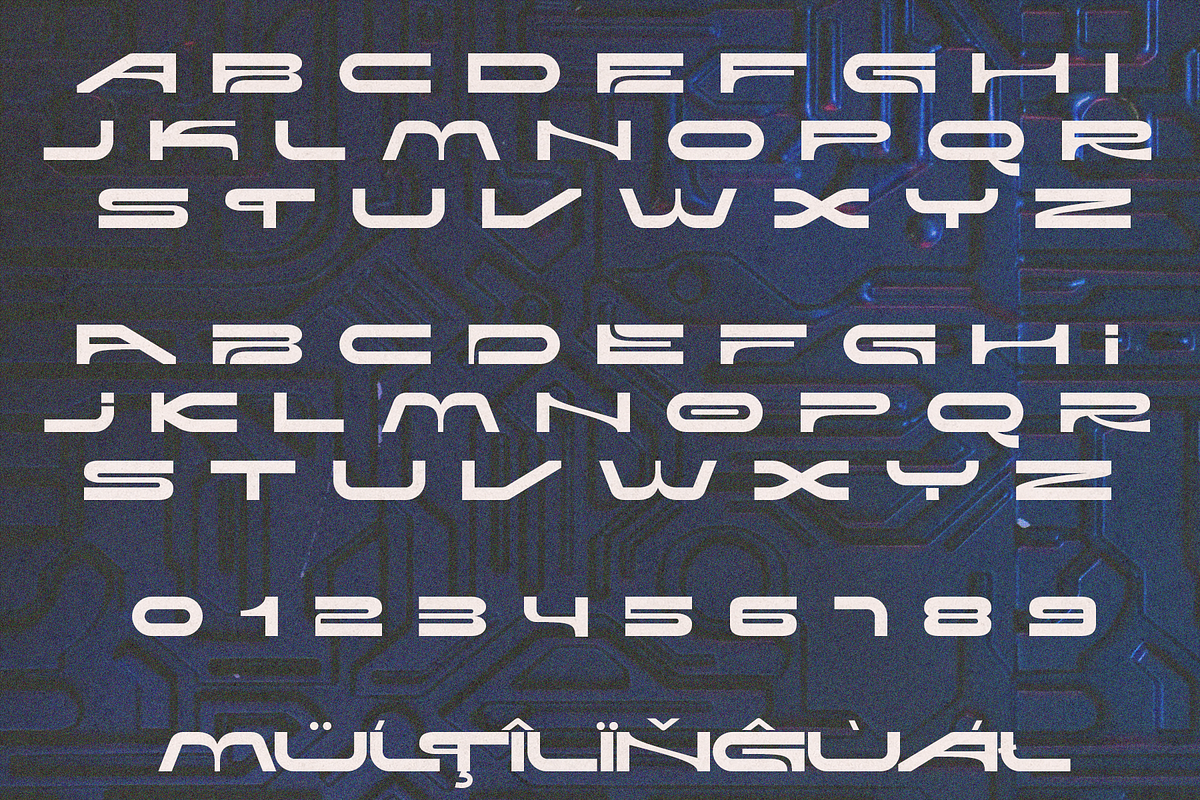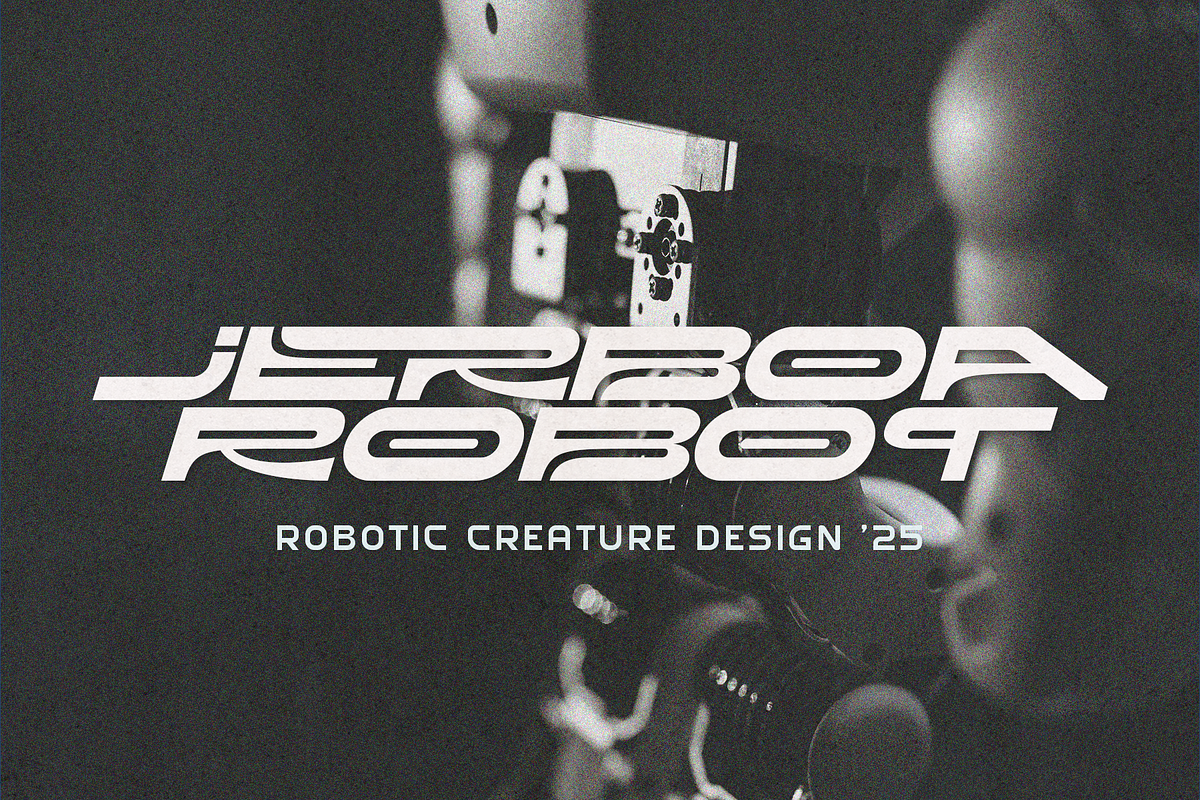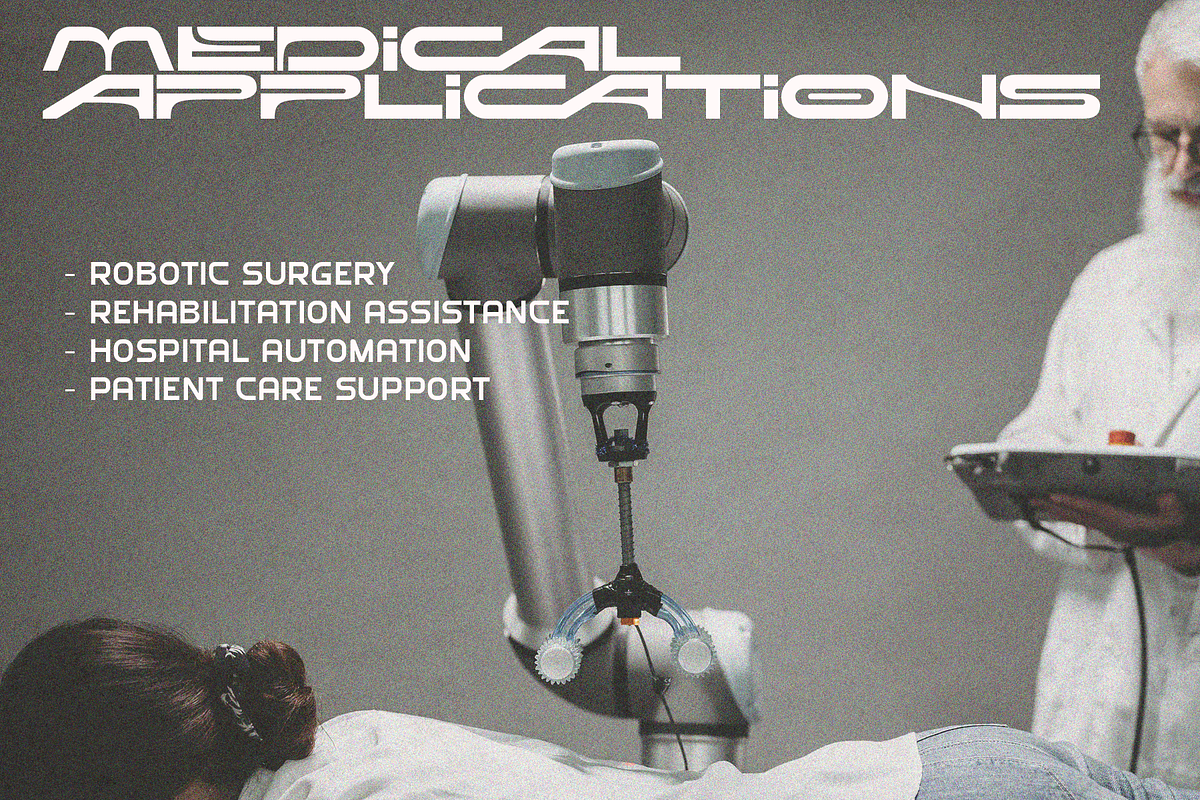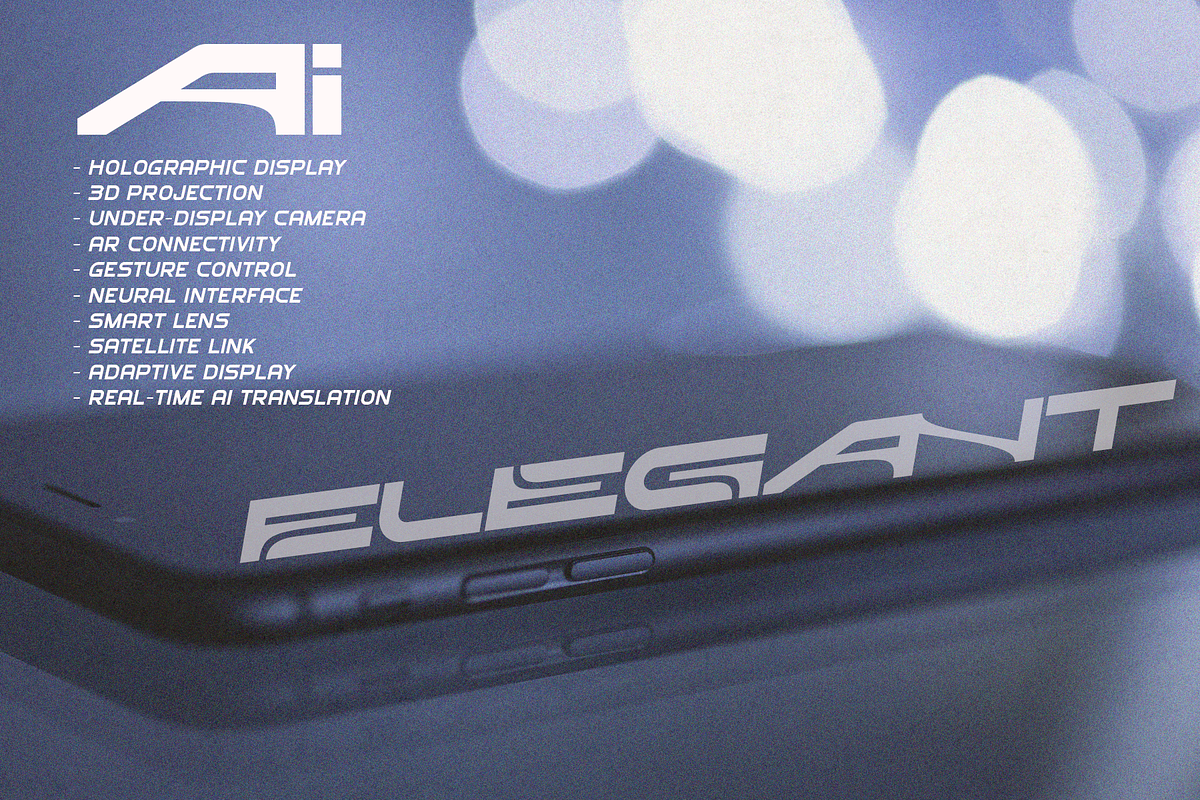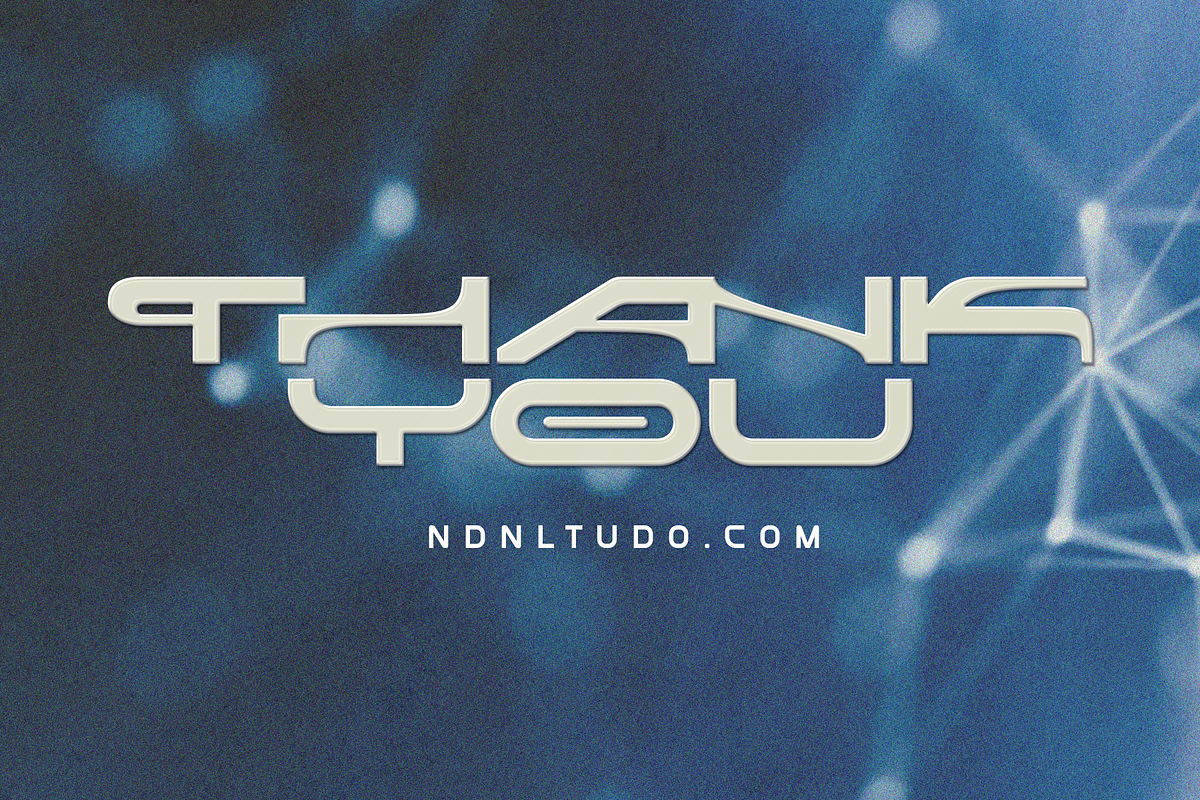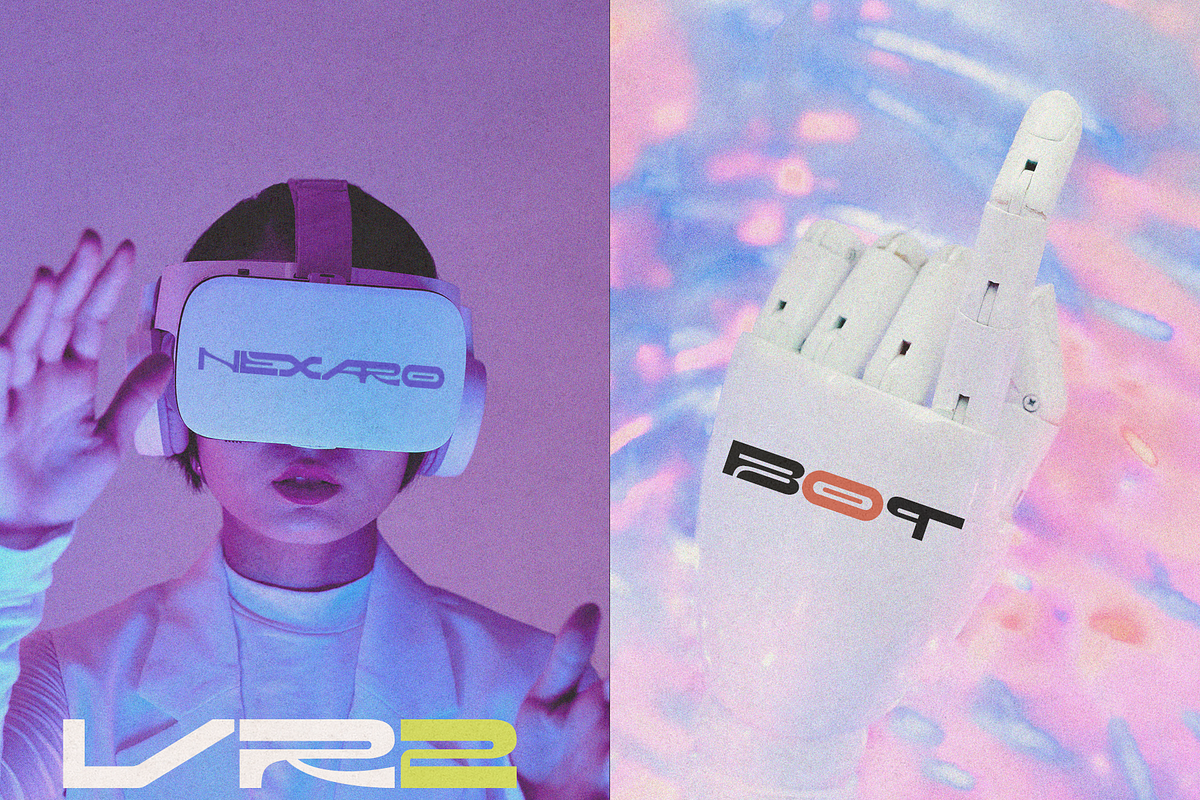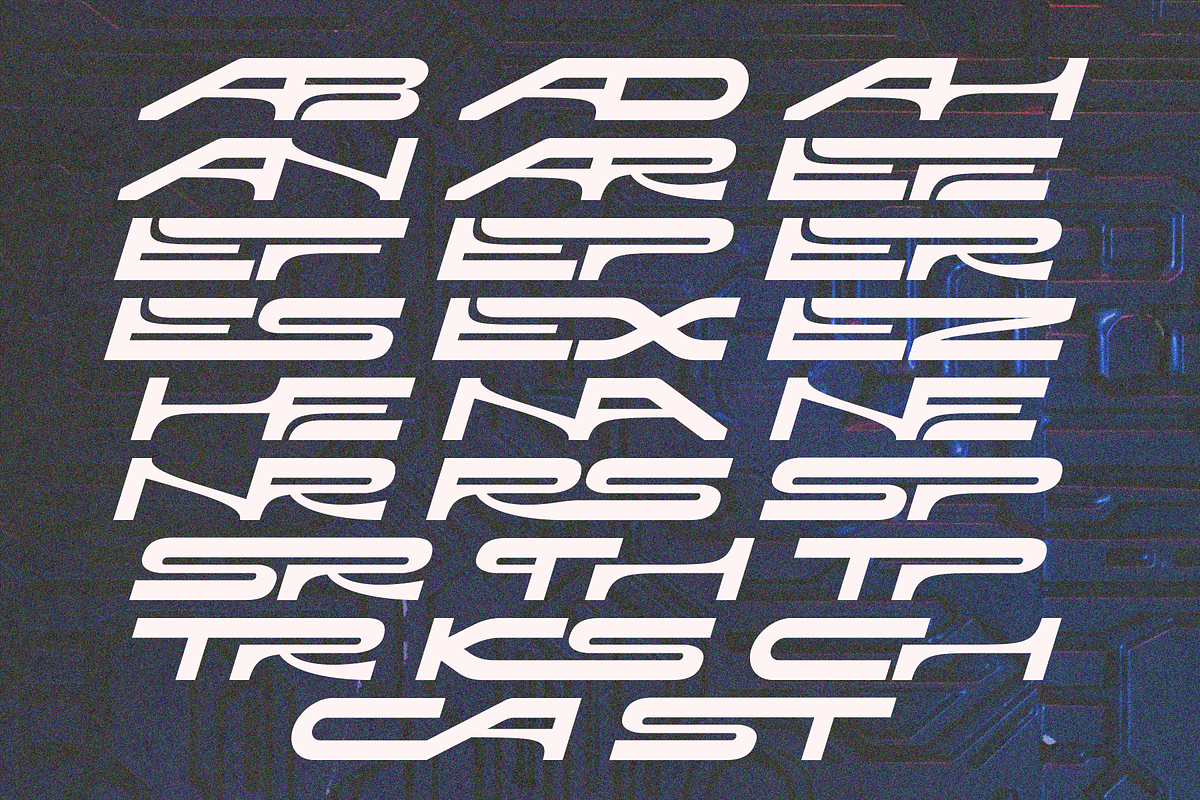
Deroka – Display Font
Deroka is a futuristic display font inspired by advanced technology, robotics, and the visual language of the future. Its bold, streamlined letterforms feature distinctive cut-out details and sleek curves, creating a strong sense of motion, innovation, and modernity.
Designed to make an immediate visual impact, Deroka is perfect for technology branding, sci-fi projects, gaming, esports, robotics, futuristic posters, product design, headlines, logos, and digital interfaces. Its unique character makes it an excellent choice for designers looking to give their projects a bold and forward-thinking identity.
– Character set A-Z
– Uppercase & Lowercase
– Numerals & Punctuation
– Accented Characters (West Europe)
– Ligatures